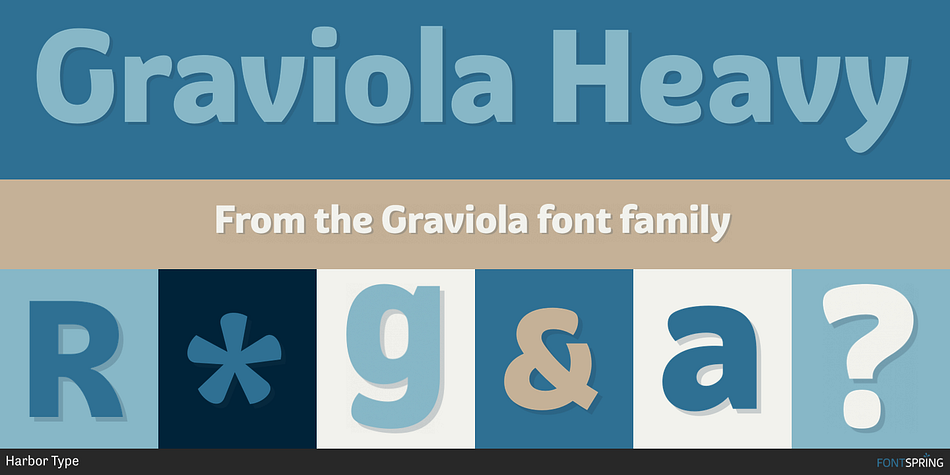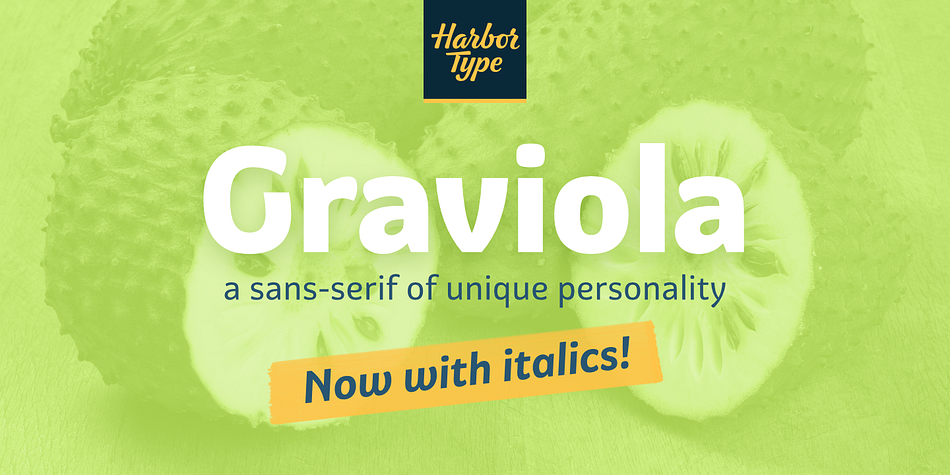
Graviola Heavy
Graviola is a sans serif font family. This typeface has sixteen styles and was published by Harbor Type.
With semi-rounded terminals, Graviola is soft and friendly.
* Selected for Tipos Latinos 7 with a Certificate of Excellence.
With semi-rounded terminals, Graviola is soft and friendly. The family consists of 16 fonts, from Thin to Black and matching italics. While the intermediate ones are suited for body text, the extreme weights look specially beautiful at display sizes.
Each font contains 530+ glyphs, supporting more than 90 languages. Stylistic sets provide alternates in two groupings (a, v, w, y and G, g, &).